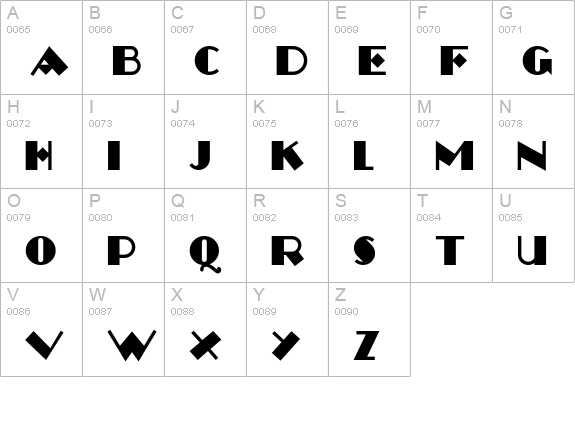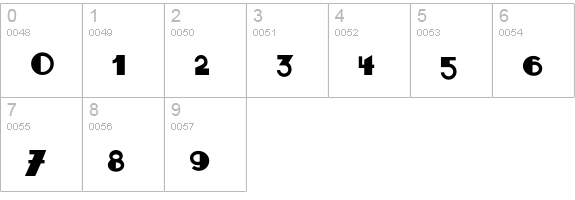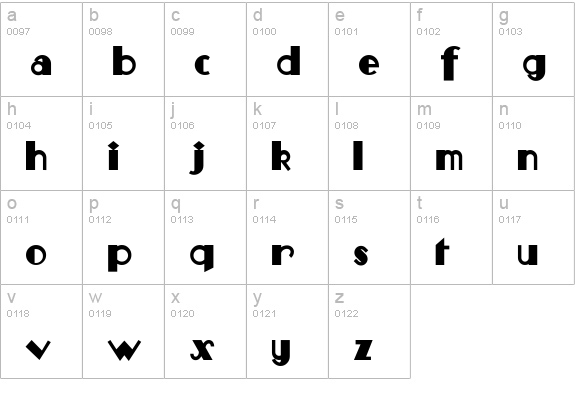
Monkey-Fingers Font Details
Monkey-Fingers font is a playful and whimsical typeface that will bring a touch of fun and creativity to any design project. With its quirky and unique letterforms, this font is sure to make a statement and stand out from the crowd. Perfect for adding a touch of personality to invitations, posters, logos, and more. The best part? Monkey-Fingers font is completely free to download at FontsMarket.com. So go ahead and unleash your inner creativity with this charming and eye-catching font today!